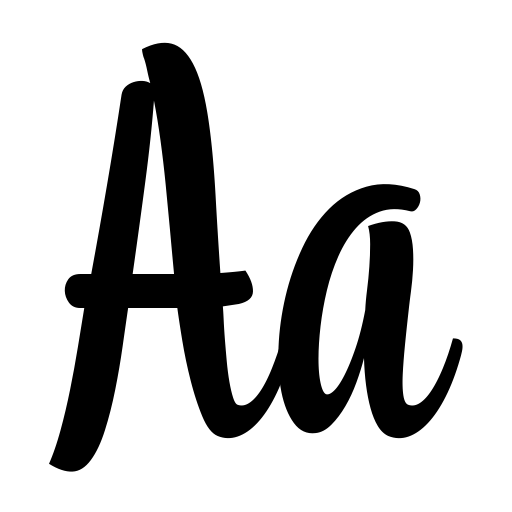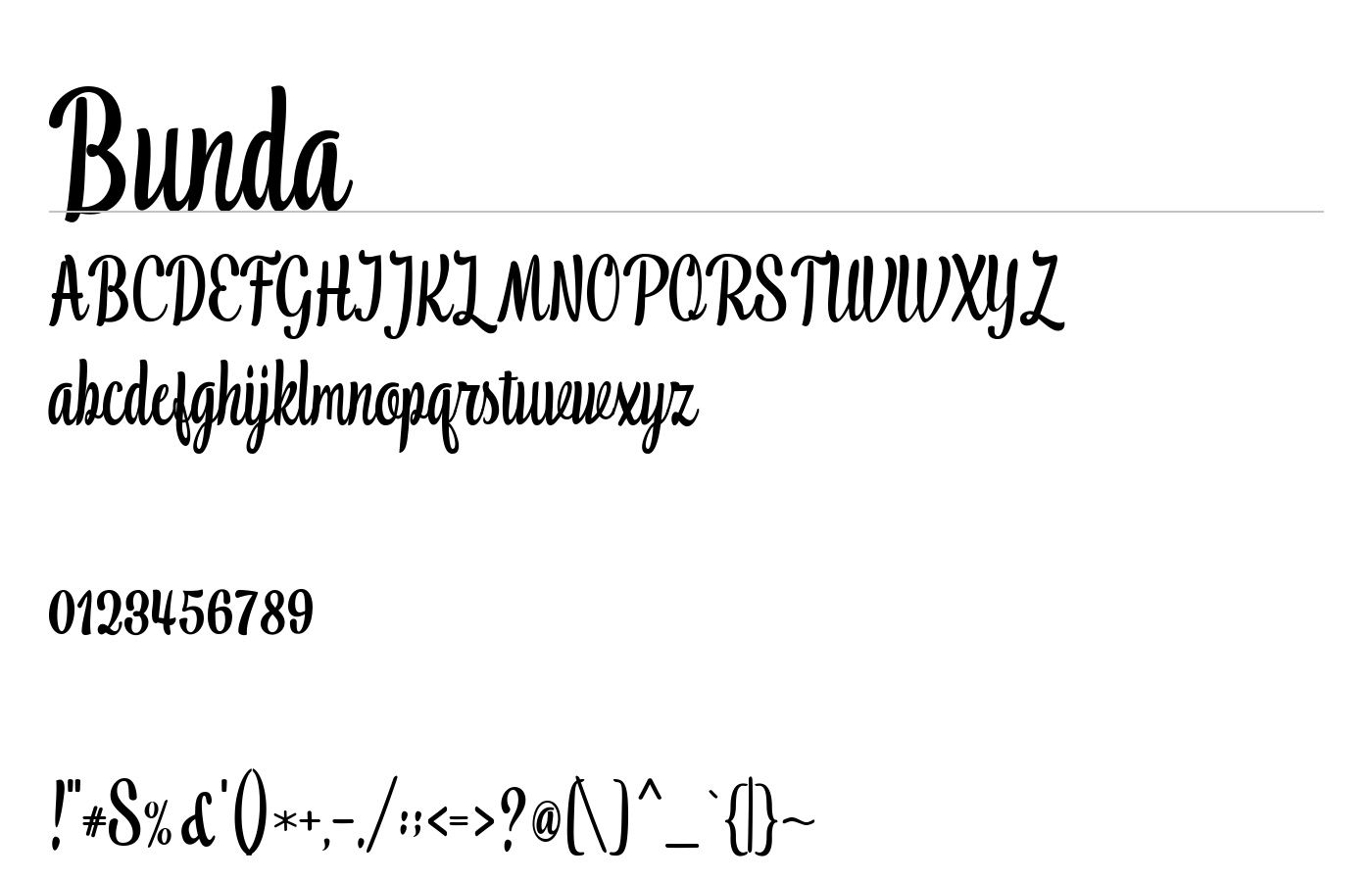
Bunda is a stylish script font with a handwritten feel, featuring tall, narrow letterforms and smooth, flowing strokes that balance elegance with a touch of playfulness. Its bold yet refined style makes it perfect for eye-catching logos, invitations, and branding projects that seek a unique, personal touch. Bunda works well in headlines and decorative uses where a warm and friendly personality is desired.
Bunda Font